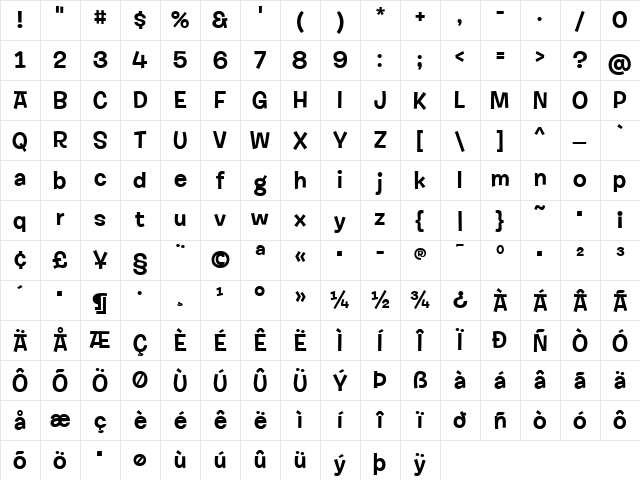
Shag-Lounge Regular
Foundry: House Industries
Designer: Tal Leming
Design Context for Shag-Lounge
Shag-Lounge is a composed and adaptable typeface that performs quietly and consistently across a wide range of design contexts.
Pro Tip: Use Shag-Lounge in both headline and body roles to test its range before committing to a single application.